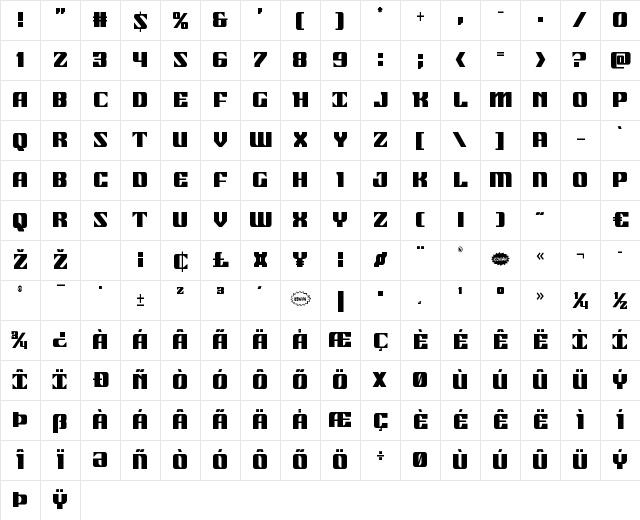
21 Gun Salute Condensed Free Font
21 Gun Salute Condensed Condensed
Style: Condensed
Design Context for 21 Gun Salute Condensed
21 Gun Salute Condensed is a composed and adaptable typeface that performs quietly and consistently across a wide range of design contexts. Its narrow stance lets it pack a punch even in space-constrained designs.